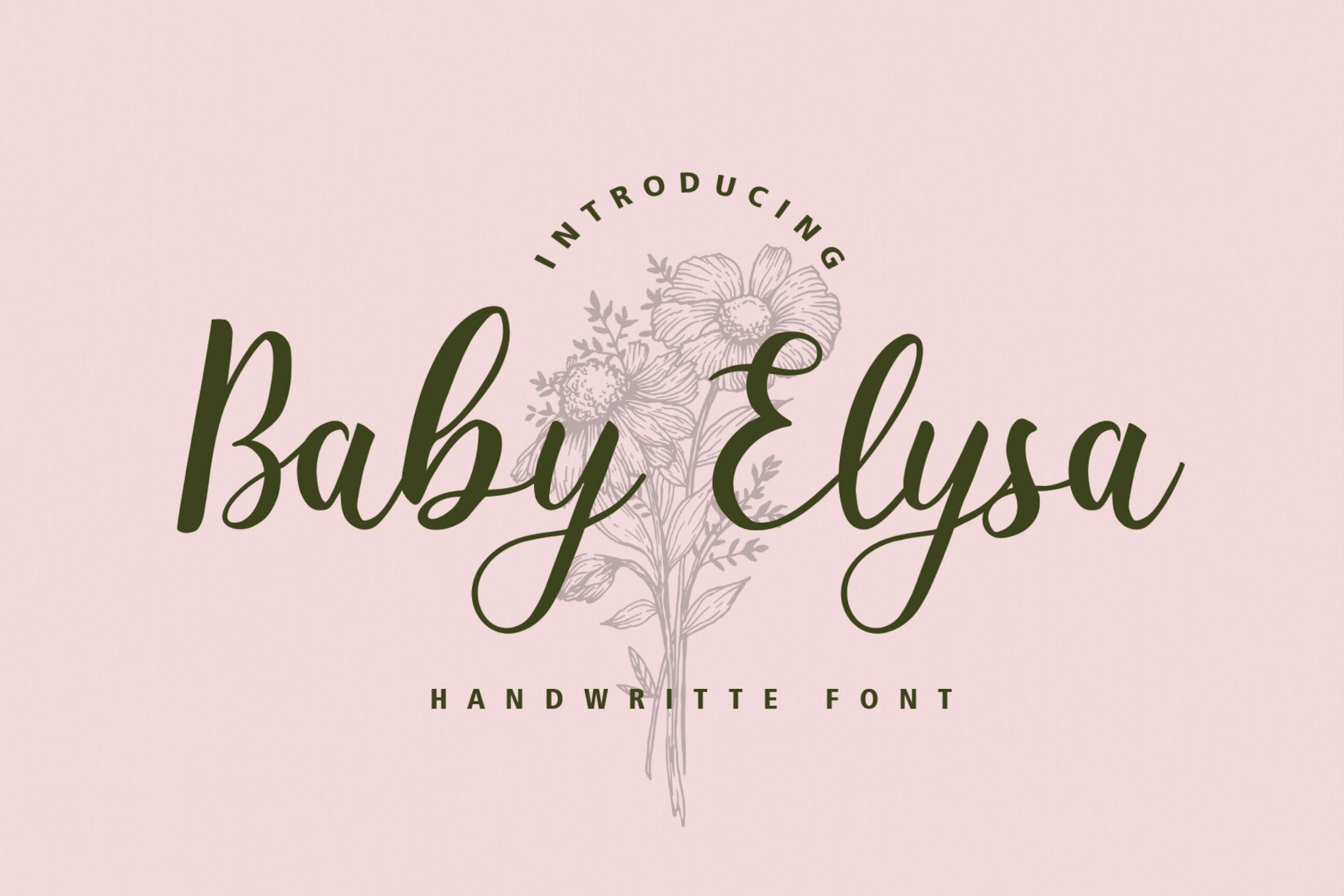
Baby Elysa Wedding Font
The Baby Elysa Wedding Font excels in tender design applications including delicate wedding invitations, sweet bridal branding, gentle ceremony logos, tender product packaging, sweet business cards, gentle portfolios, delicate greeting cards, tender social media graphics, sweet event signage, and gentle marketing materials. Its tender script style makes it perfect for projects requiring sweet elegance that communicates gentleness and establishes delicate brand positioning with audiences seeking tender wedding experiences and sweet sophistication.
What makes the Baby Elysa Wedding Font truly exciting is its exceptional ability to capture the sweet tenderness and gentle beauty of delicate weddings through tenderly crafted letterforms. The font features flowing, sweet strokes with gentle flourishes and tender proportions that create a distinctly delicate appearance. Each character displays remarkable attention to tender detail with sweet curves, gentle connections, and delicate spacing that give text a beautifully sweet, hand-lettered quality. The font's tender character and gentle rhythm create an atmosphere of sweet elegance while maintaining delicate sophistication and wedding authenticity.
The Baby Elysa Wedding Font family typically includes regular weight with extensive character coverage, featuring uppercase and lowercase letters, numerals, punctuation marks, and international characters. The typeface often incorporates stylistic alternates, contextual ligatures, and sweet swashes that enhance its signature tenderness. These additional elements provide designers with creative flexibility to customize text appearance and achieve more natural-looking gentle handwriting that reflects the font's tender and sweet character.
This tender signature font distinguishes itself through its remarkable balance of sweet charm and sophisticated elegance. Unlike harsh or rough fonts that lack tender appeal, Baby Elysa Wedding Font embraces the power of sweet design to create gentle connections with delicate wedding audiences. The font's tender character makes it essential for sweet wedding planners, gentle brands, and delicate celebration businesses where creating tender wedding experiences and sweet memories is fundamental to success in gentle wedding markets.
Baby Elysa - Wedding Brush Calligraphy Script Font. The unique flow and easy calligraphy style makes it perfect for blogging, social media, branding, wedding invites, cards or simply use it in your next design project. It comes with ligatures and 10 catchwords. You can combine it to make a perfect typography design. Thank you and hope you're having fun with Baby Elysa ! Happy creating!